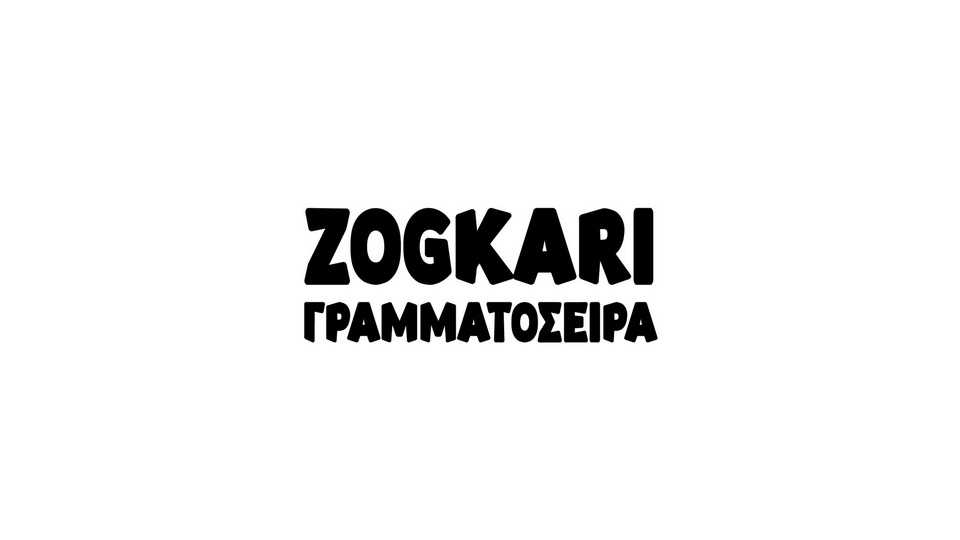
Download Zogkari font, a bold and playful display typeface that combines chunky shapes with smooth curves for a delightful and eye-catching look. It features thick, rounded letterforms that exude warmth and friendliness.
Designer: Christos Lentzaris